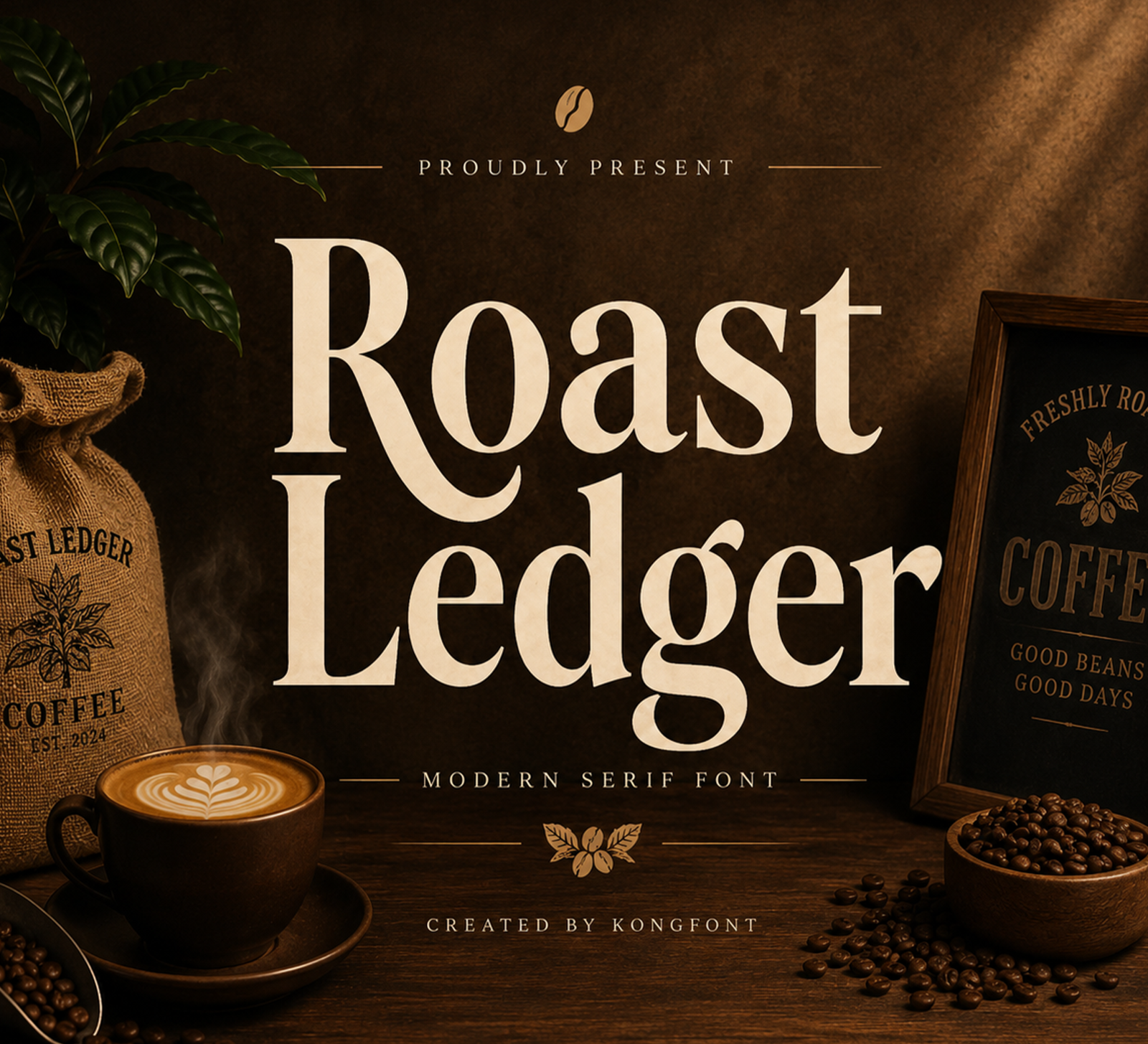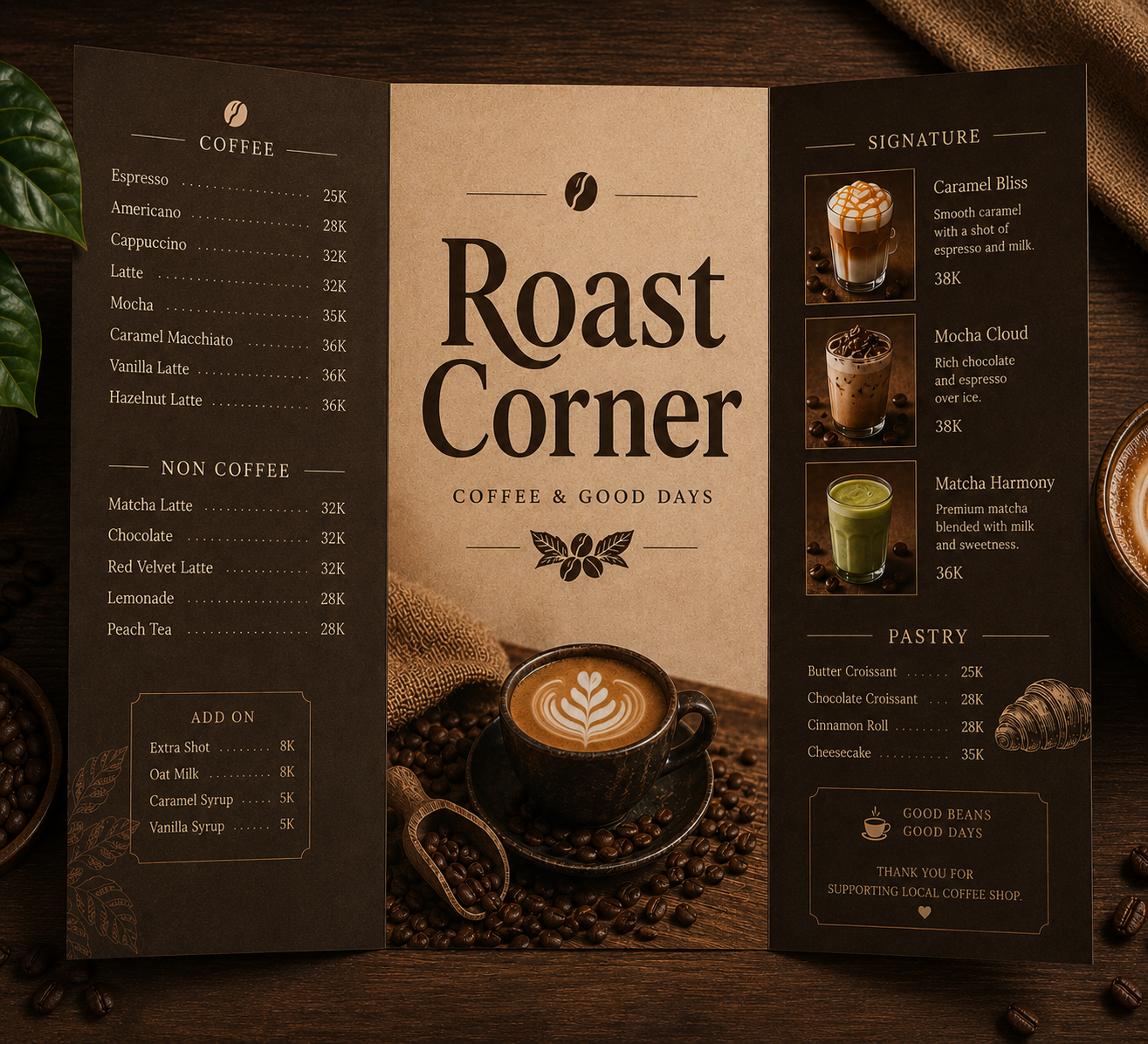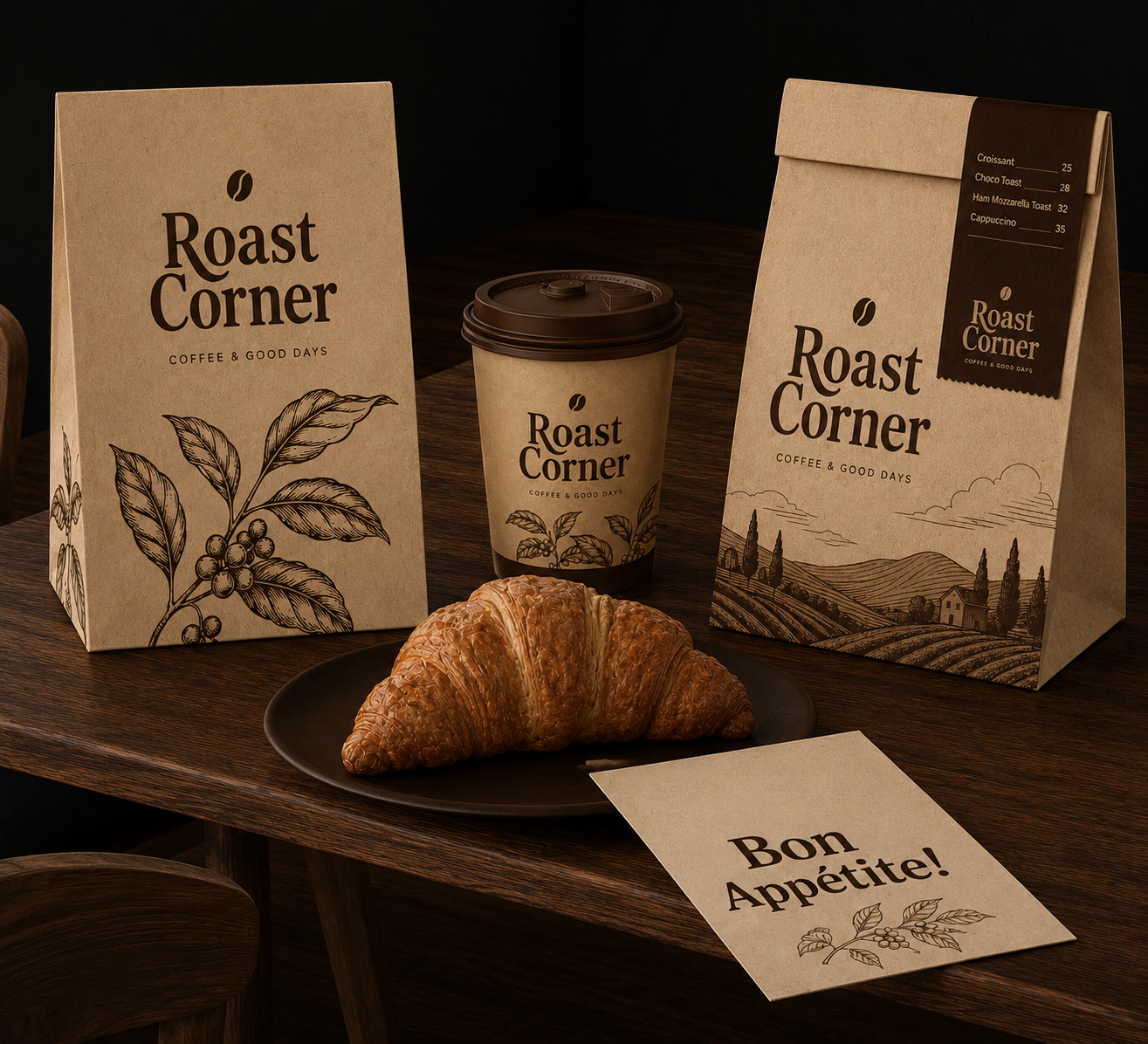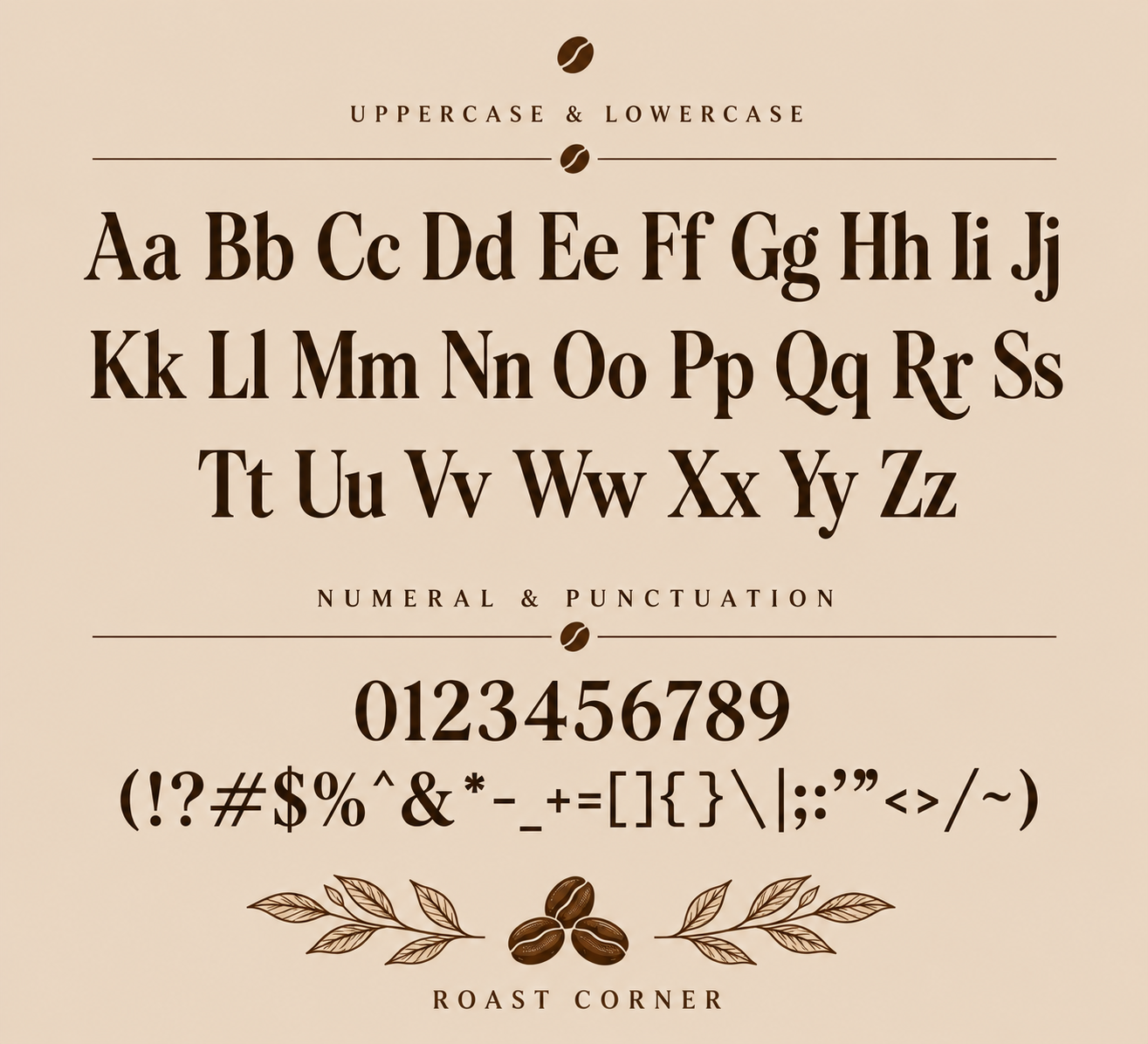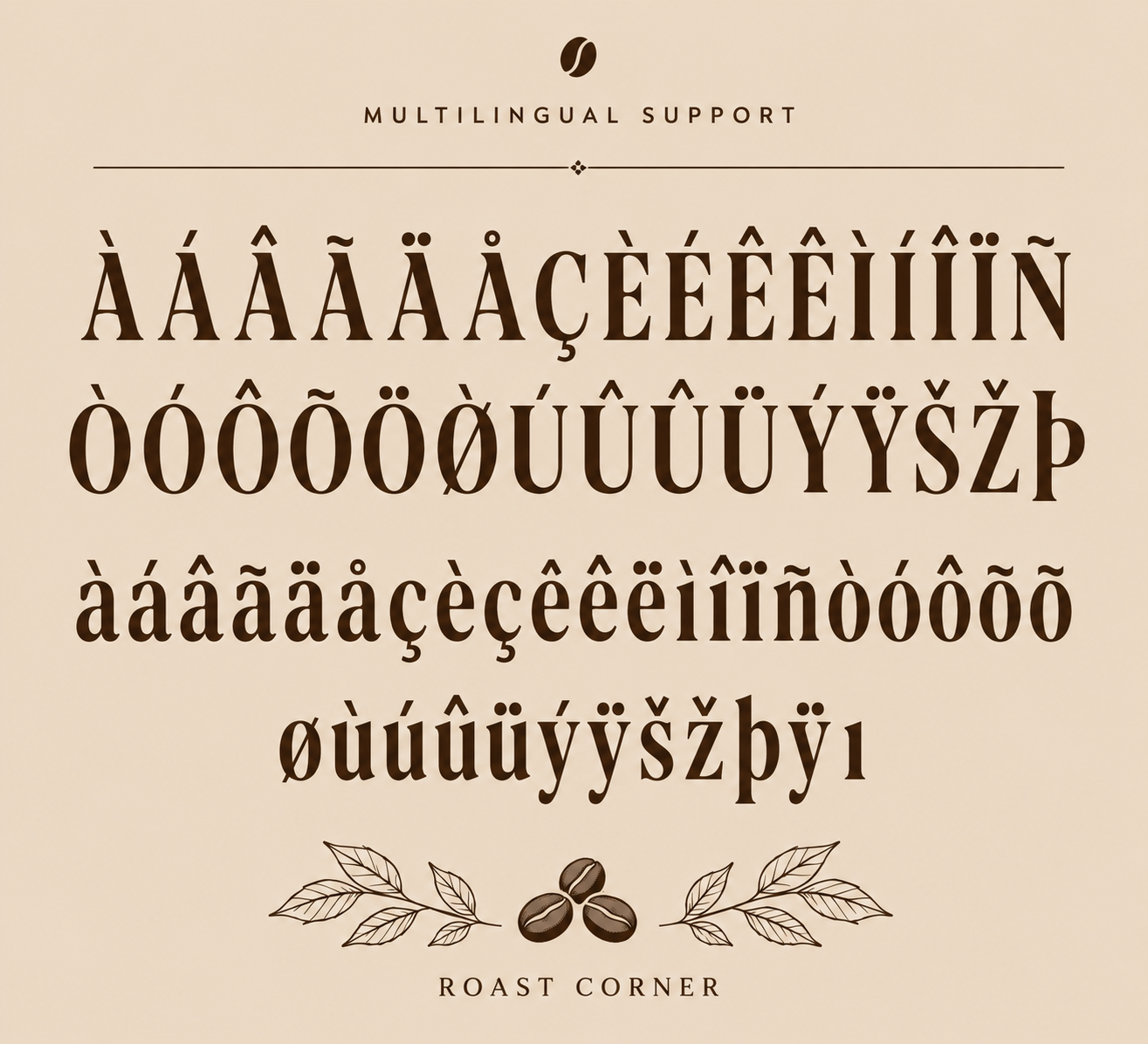
Roast Ledger is a modern serif font with bold letterforms, clean curves, and a stylish contemporary look. Its strong shapes make headlines easy to notice while keeping the overall design elegant and professional.
• Branding
• Logos
• Business cards
• Blog headers
• Quotes
• Editorial titles
• Packaging
• Creative typography